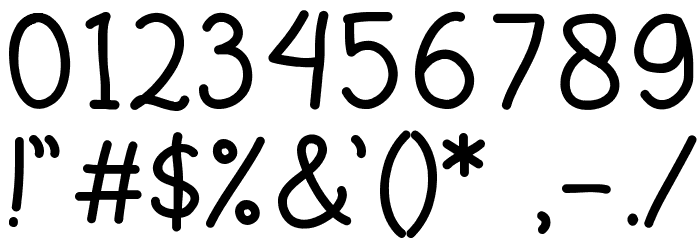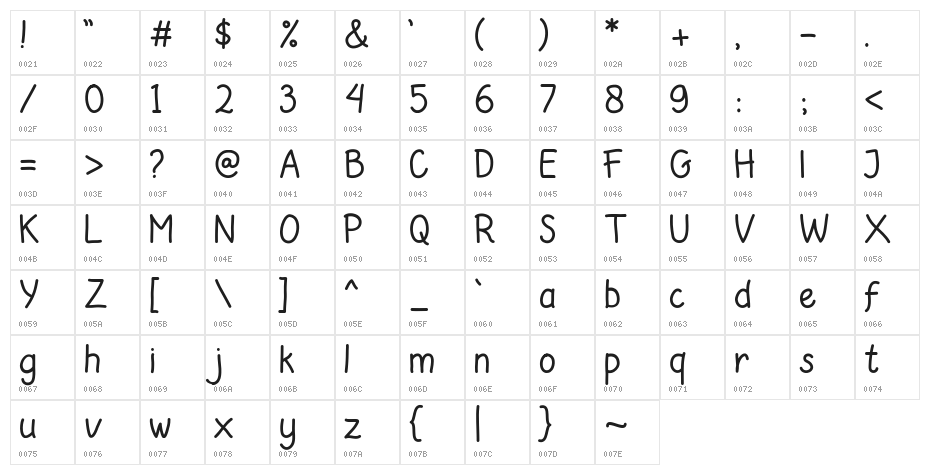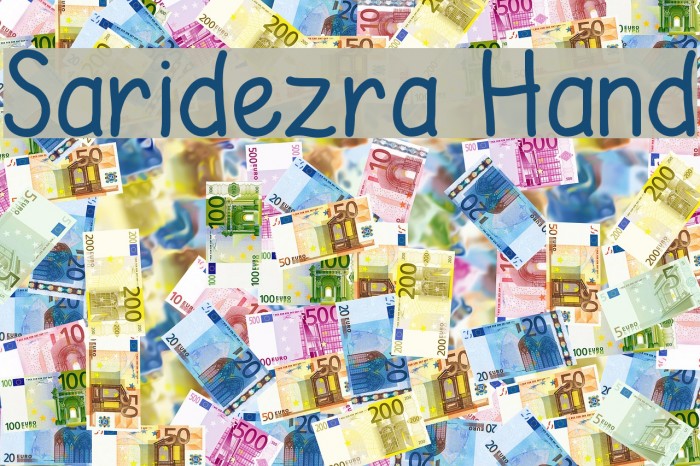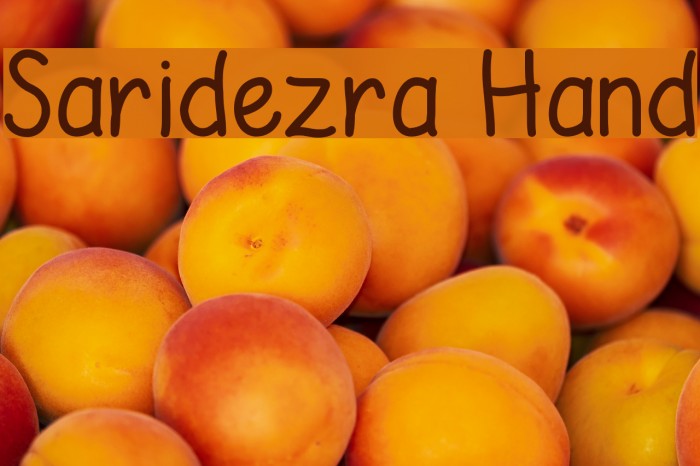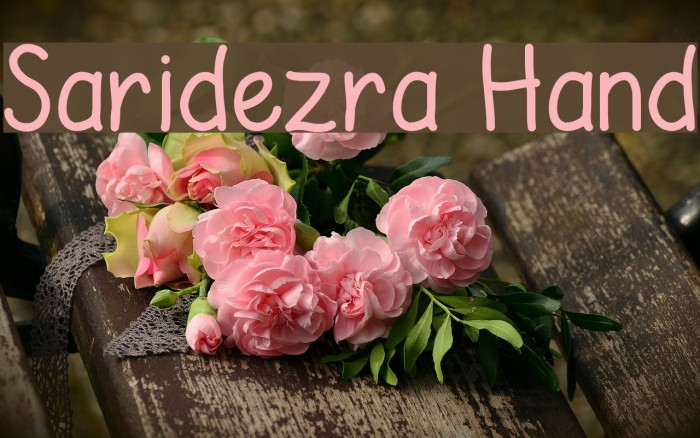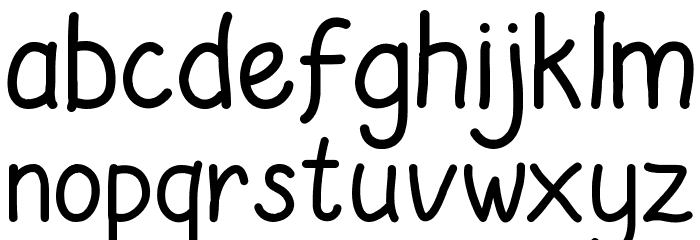
Saridezra Hand Font
Saridezra Hand Description
This font exhibits a playful and casual handwritten style, characterized by its smooth, rounded edges and slightly irregular letterforms. The uppercase and lowercase letters maintain a consistent flow, giving a sense of movement and personality. The numerals and special characters are crafted with the same whimsical touch, ensuring a cohesive look across all glyphs. The font's informal nature makes it approachable and friendly, ideal for projects that require a personal touch. Its legibility is maintained despite the playful design, making it suitable for various applications.
| Proposed Projects | Ideal for greeting cards, children's books, personal blogs, and informal branding. |